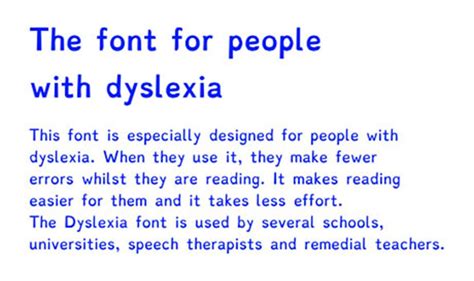
Open Dyslexic Font Abbie Gonzalez FontSpace
Font To Help Dyslexia. A typeface for dyslexia opendyslexic is a typeface designed against some common symptoms of dyslexia. That can be quite a challenge.
That can be quite a challenge. Dyslexie font offers people with dyslexia a. A typeface for dyslexia opendyslexic is a typeface designed against some common symptoms of dyslexia.